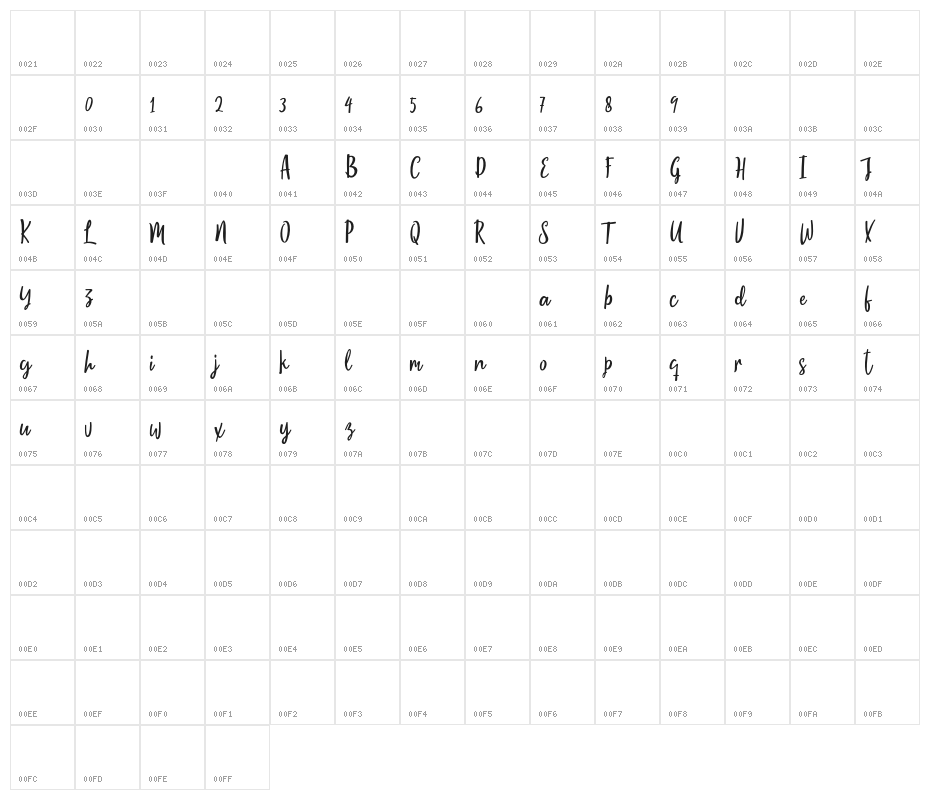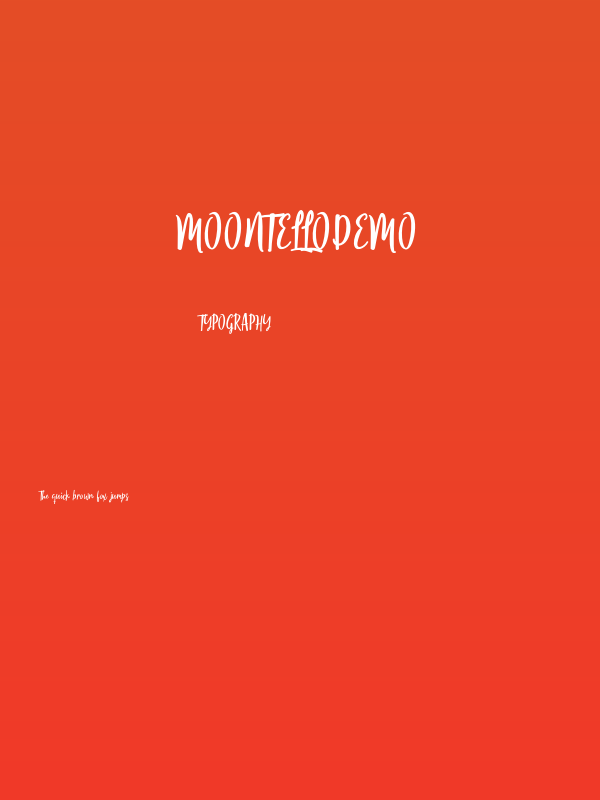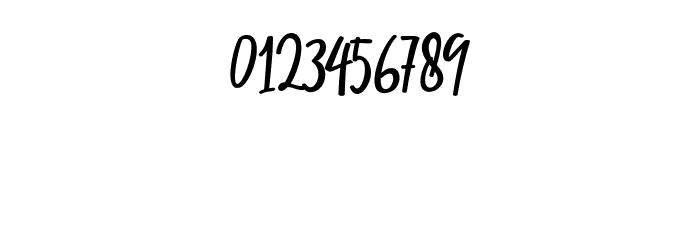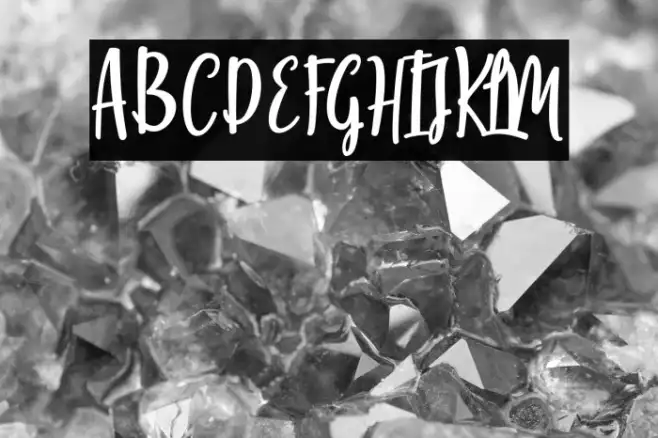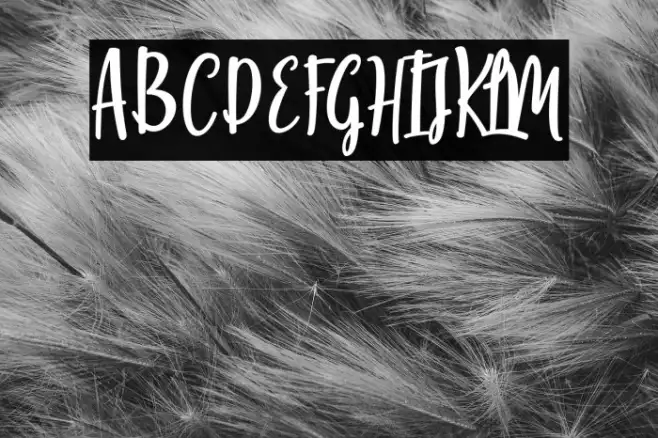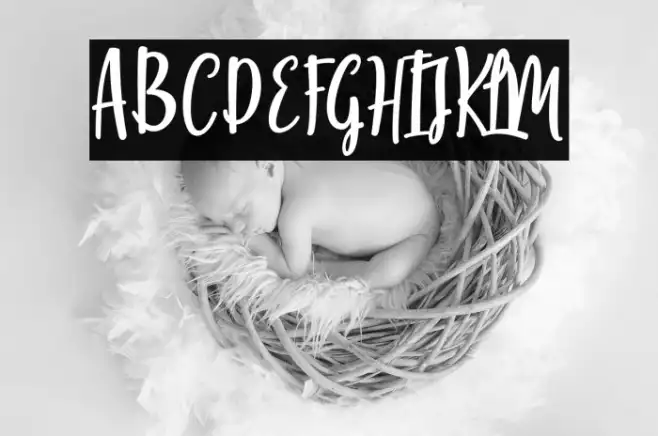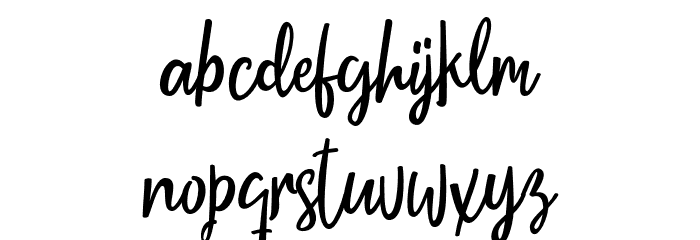
MoontelloDemo Font
MoontelloDemo Description
This font features a playful and energetic script style, characterized by its flowing, handwritten appearance. The letters are slightly slanted, with varying stroke widths that add a dynamic and lively feel. The uppercase letters are bold and prominent, while the lowercase letters maintain a consistent flow, enhancing readability. The numbers are well-integrated with the overall style, maintaining the same playful and casual aesthetic. The special characters complement the font's style, making it versatile for various design needs.